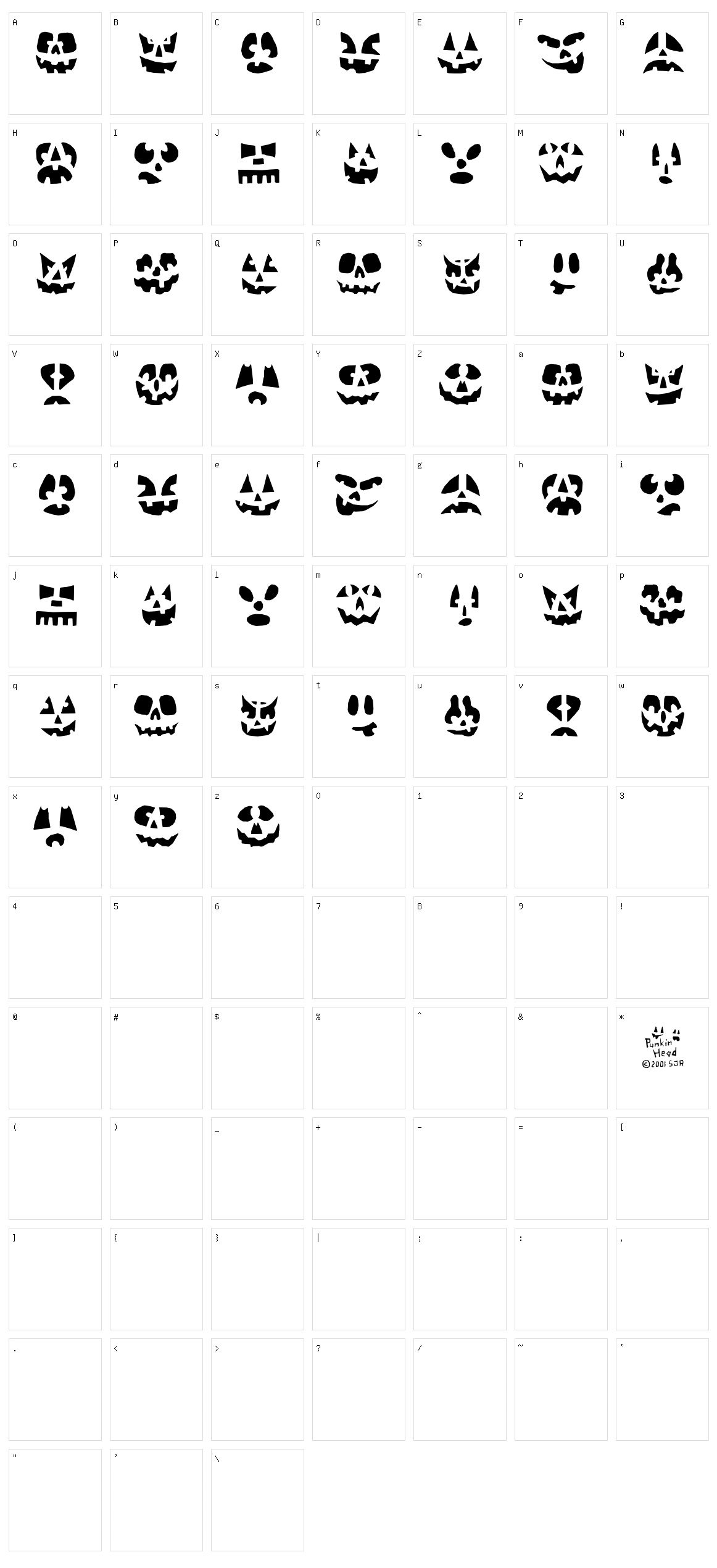
PUNKINHEAD
A TrueType Font by S. John Ross
Punkinhead is a dingbat font of Jack-O-Lantern faces, but it's more than just dingbats: Go into WordPad (or any comparable program) and set the paper to portrait, print a _single_ character from this font on it in the biggest size that fits (often 600ish points) and voila! You've got a Jack-O-Lantern template (or a really cheap, cheesy paper mask). I doodled these up at Ruta Maya on a writing break, eager to once again pervert the humble font into doing something unusual.
Punkinhead has 26 designs (a-z) with mirror (reverse) versions mapped to the capitals (A-Z). When making your punkinhead, follow these guidelines for better results: